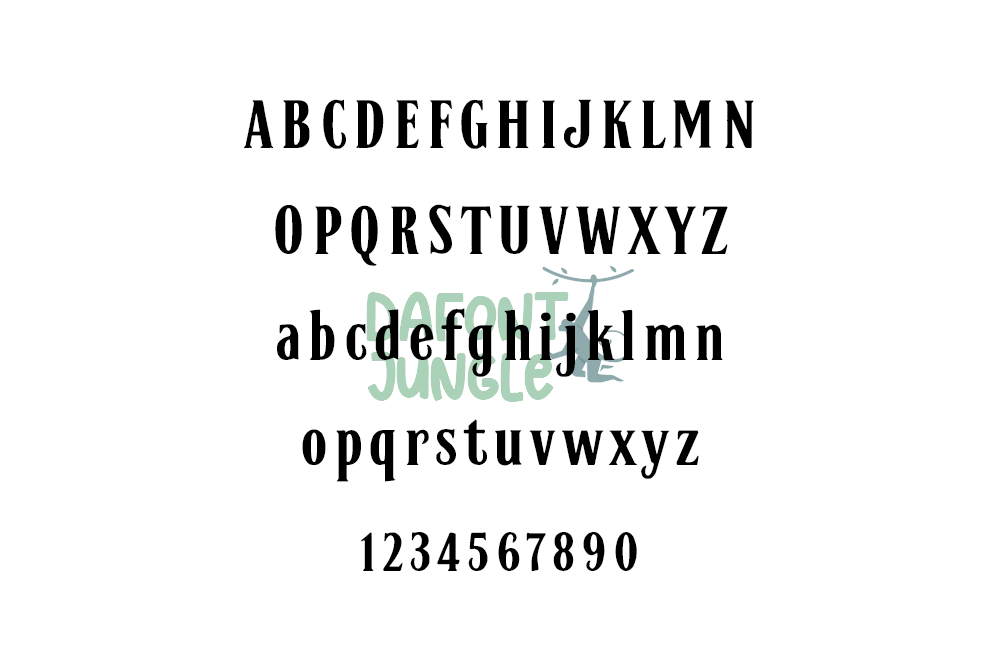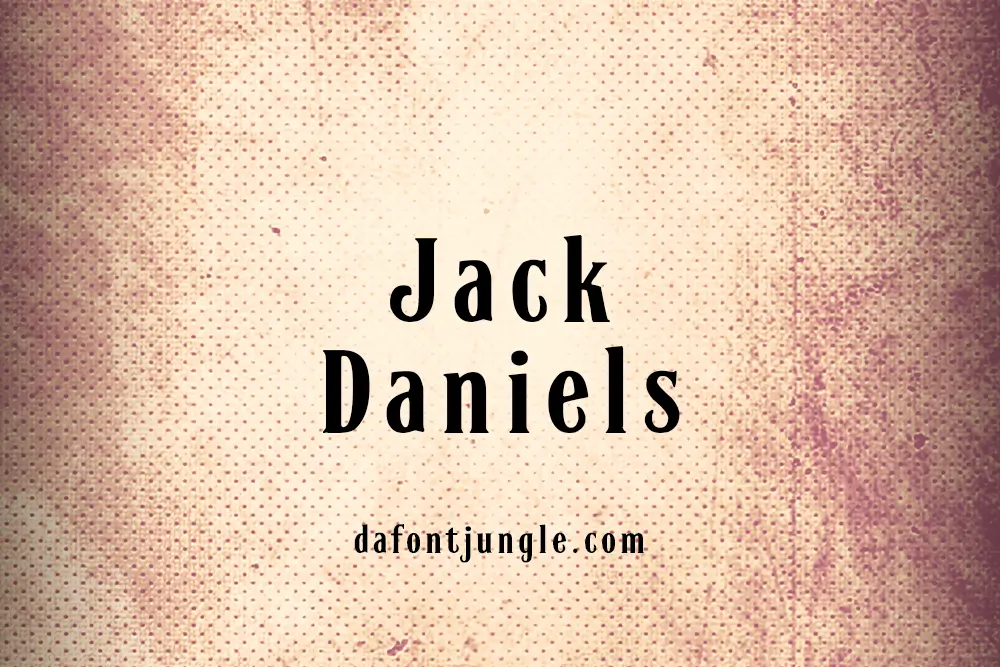
Jack Daniel’s Font – A Bold, Vintage-Inspired Typeface
Jack Daniel’s is known for more than just its whiskey. Its black label, square bottle, and bold vintage-style font have made the brand instantly recognizable. Since 1857, the design has become a symbol of tradition, quality, and American spirit.
Although the original typeface is custom and not available to the public, you can still achieve a similar look. Several fonts mimic its old-world charm with ornate serifs and curved strokes. These alternatives help you bring that bold, handcrafted feel into your designs.
Why It Works
– Reflects heritage and strength
– Adds bold personality to any design
– Easy to pair with rustic and retro visuals
Fonts That Capture the Look
If you’re aiming for that Jack Daniel’s feel, try these alternatives:
– Black No.7
– Lynchburg Script
– Tennessee Whiskey
These fonts aren’t official, but they offer the same rugged vibe. Use them to bring a timeless, handcrafted style to your work.